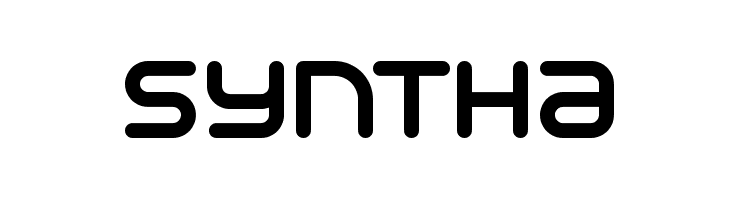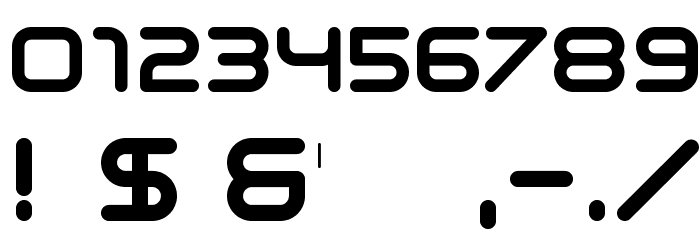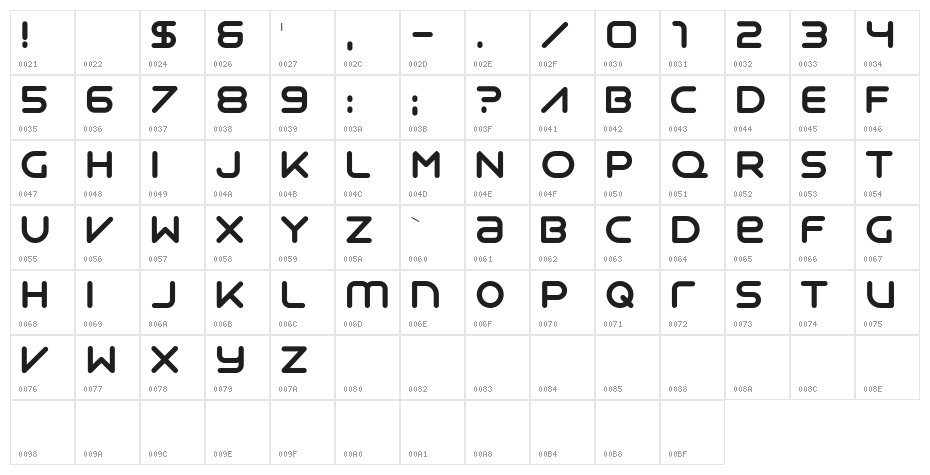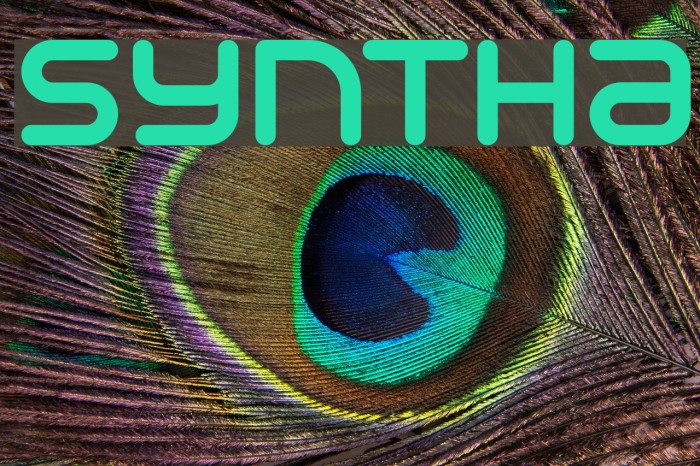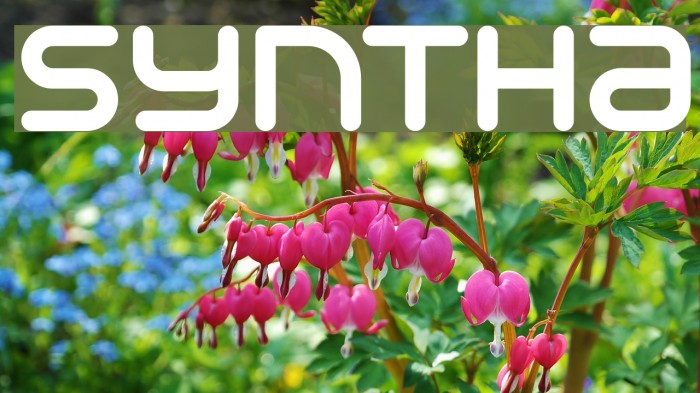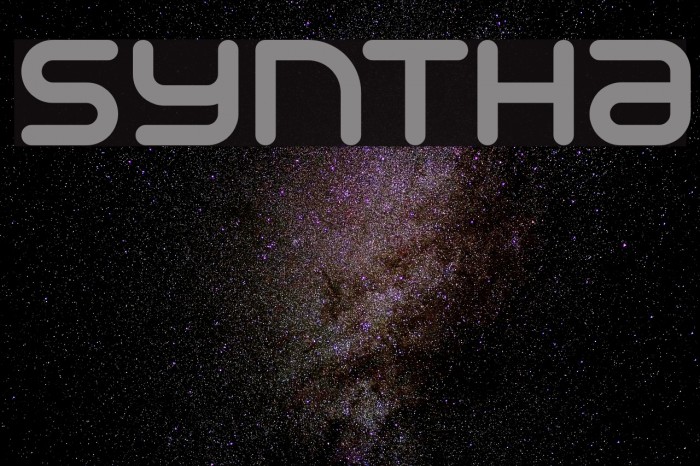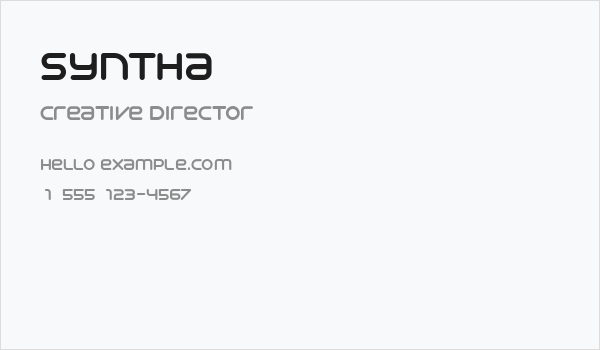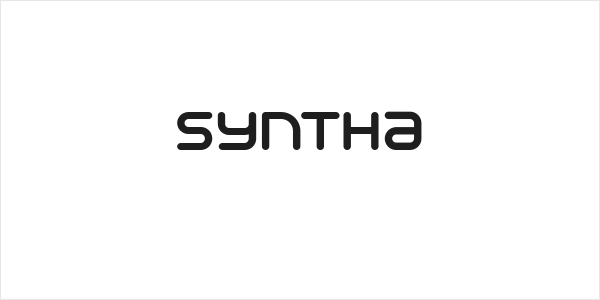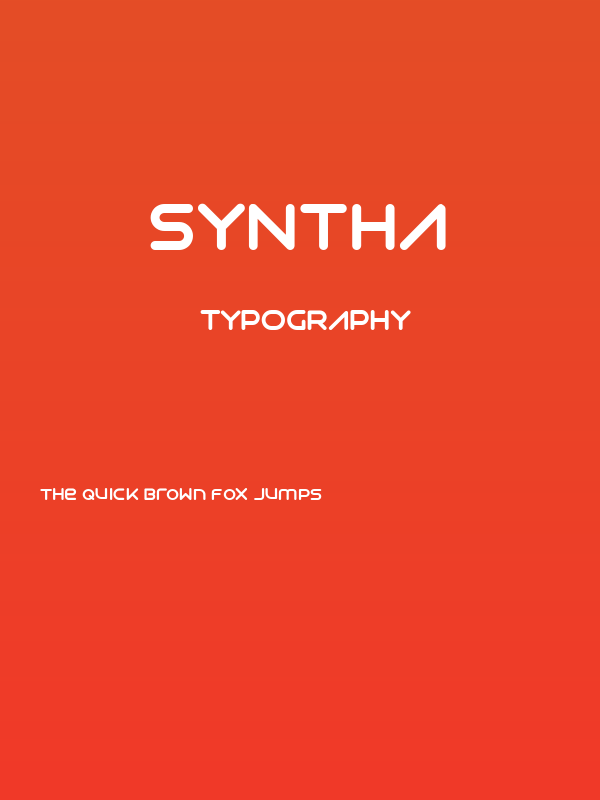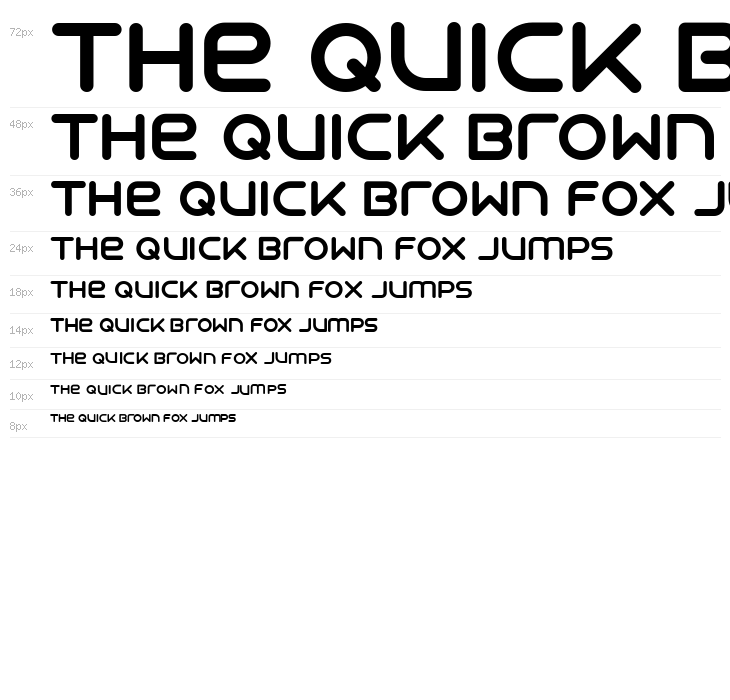
Syntha Font
Syntha Description
This font features a modern, geometric design with rounded edges and a clean, futuristic appearance. The characters are uniform in width, giving a monospaced feel, yet they maintain a distinct style with slightly curved lines that soften the overall look. The uppercase and lowercase letters are consistent in style, with a smooth transition between them. Numbers and special characters follow the same design principles, ensuring a cohesive look across all glyphs. The font's simplicity and clarity make it highly legible, while its unique style adds a touch of sophistication and modernity.
| Use Case | Logos, Headlines, Digital Interfaces |
| Proposed Projects | Ideal for tech branding, digital interfaces, modern advertising, and futuristic design projects. |